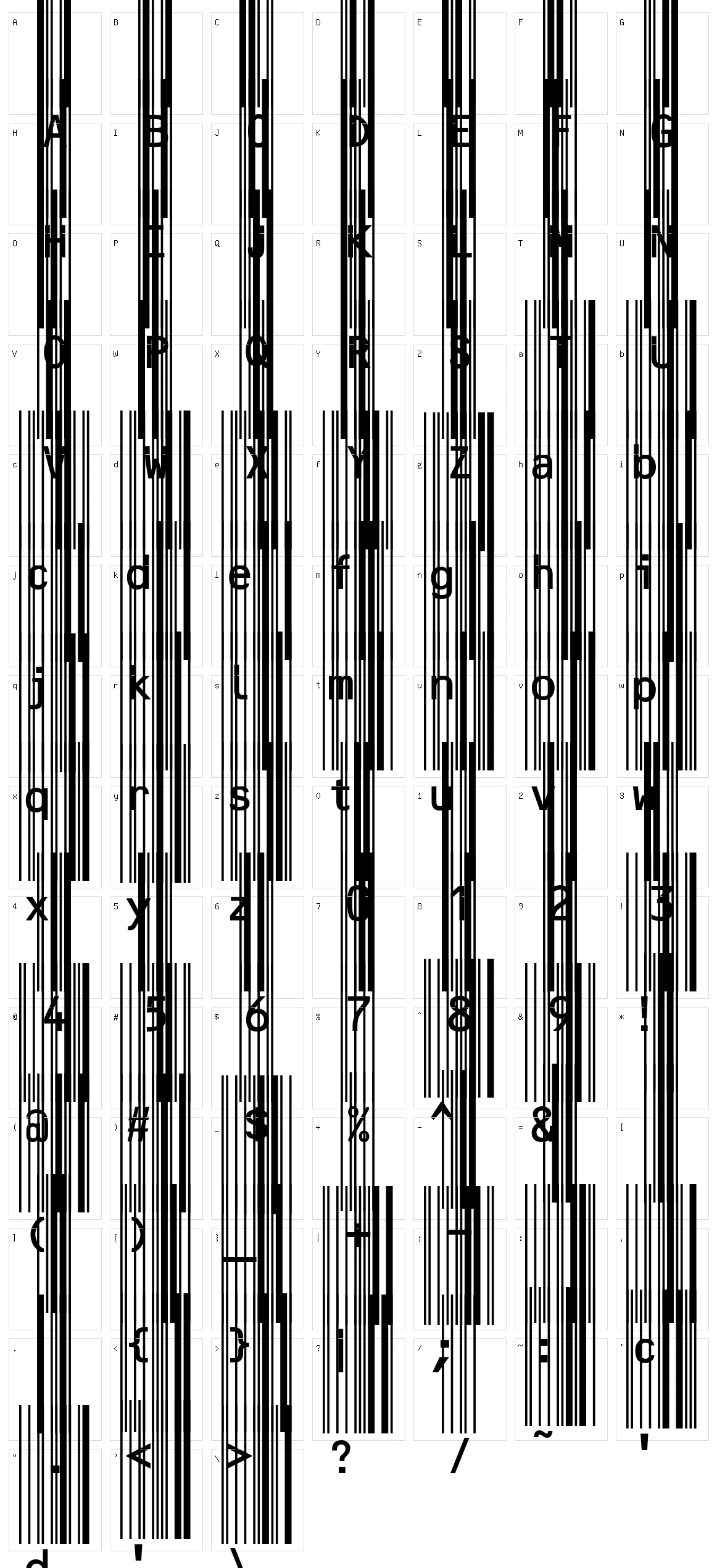
Morovia Free Code39 Full ASCII Font
"MRV Code39ExtMA" produced by Morovia Corporation (http://www.morovia.com).
It is able to produce extended code39 barcodes for letters, numbers and
punctuation symbols.